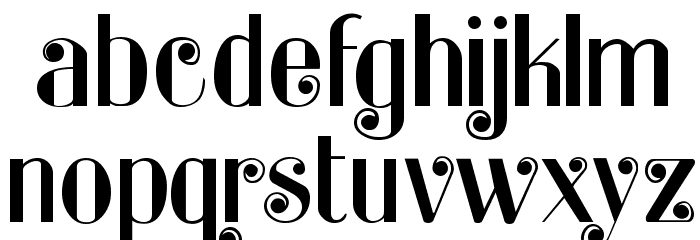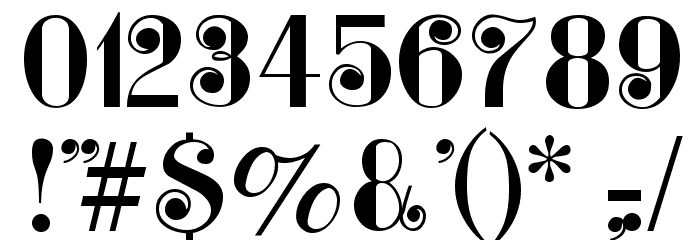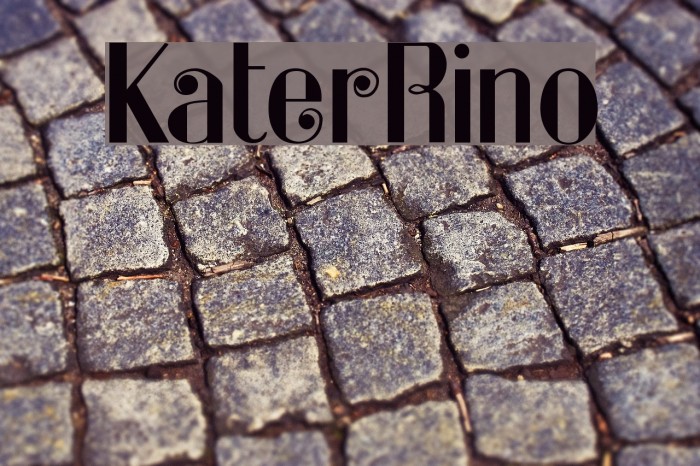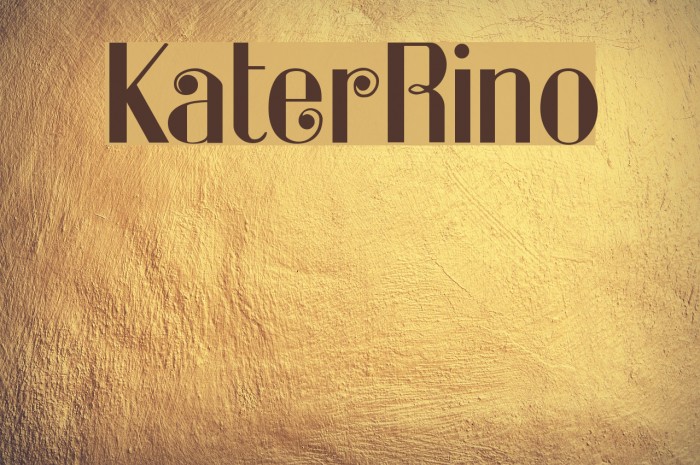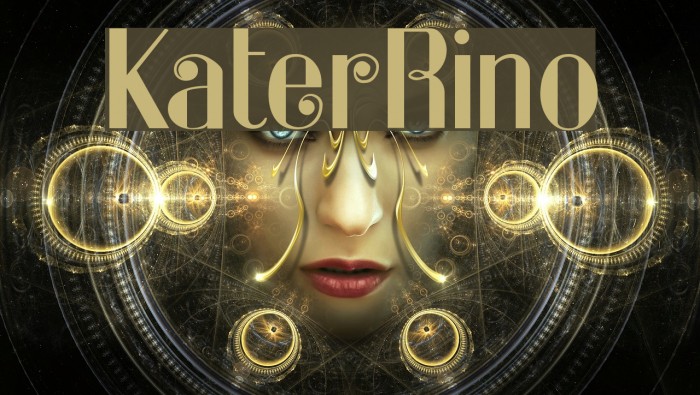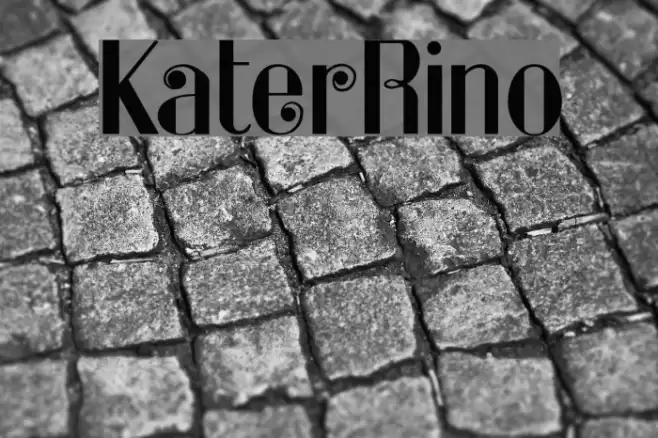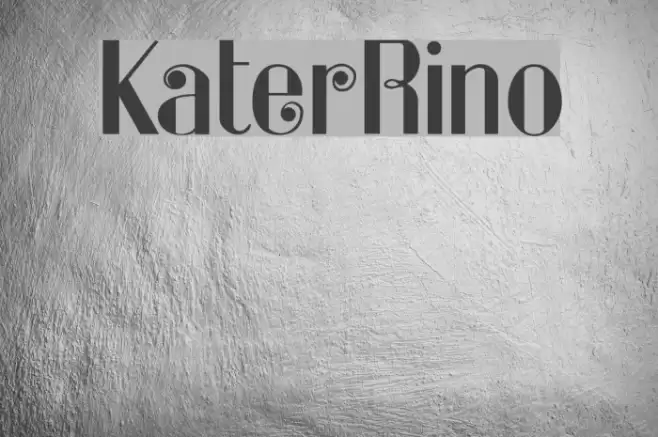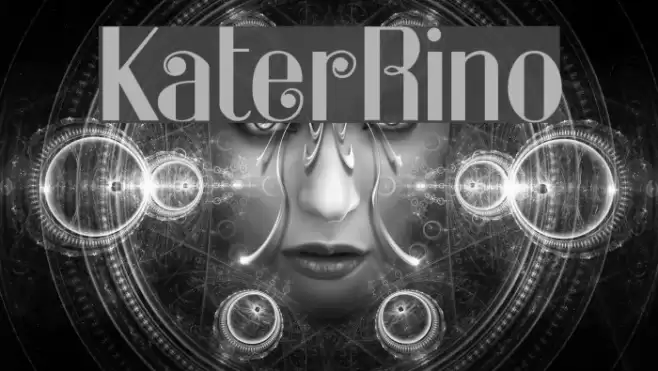
KaterRino Font
This font features a unique blend of modern and decorative elements, characterized by its bold, artistic flair. The uppercase letters are tall and elegant, with distinct curls and swirls that add a touch of sophistication. The lowercase letters maintain a consistent style, with playful loops that enhance their visual appeal. Numbers and special characters follow the same decorative theme, making them stand out with their intricate designs. The overall appearance is both stylish and eye-catching, perfect for projects that require a bold statement.
A bold, decorative font with elegant curls and swirls.
- Proposed Projects: Ideal for branding, poster design, invitations, and any project needing a striking, artistic touch.
- Overall Style: Modern, Decorative